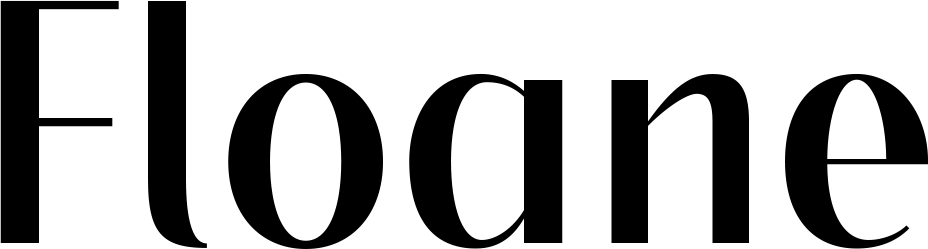
Floane Font
Sans-serif fonts are the most popular fonts, they give your typography a friendly look and they are at the top of the list when it comes to approachable fonts. If you would like your typography to be modern and playful then the Floane font should be perfect for you.
It offers 2 styles for the letterforms, in caps and regular A to Z letters, numbers, and symbols. Use the amazing font for any website, UI design, app, or media to gain attention.
This is a font I decided to recreate while I was working on it do to some problems it holds. Its fairly complete so I thought it would be better to release it for free.